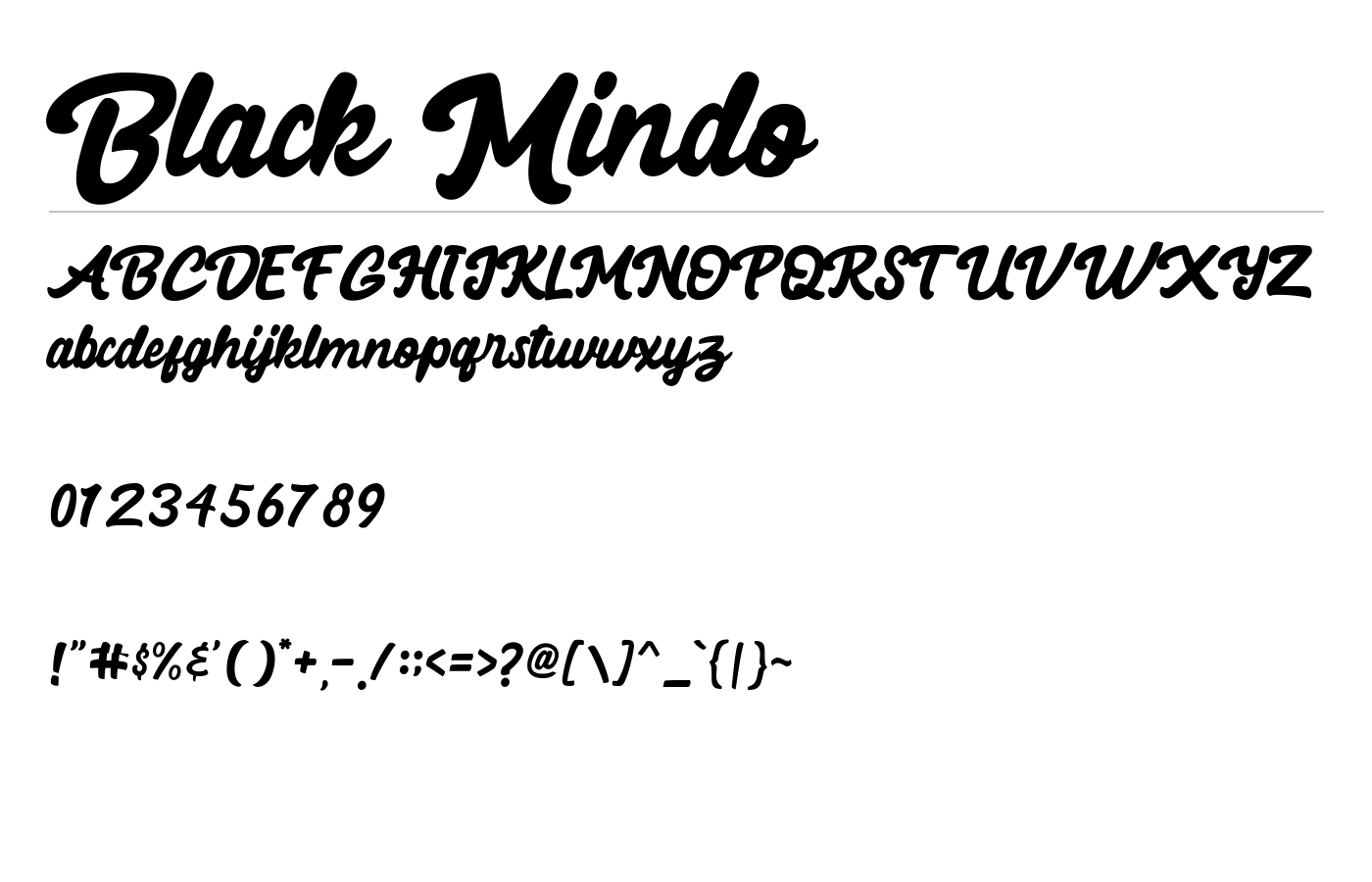
Black Mindo is a bold, script-style font that blends playful charm with a smooth, flowing design. Its rounded, thick strokes and connected letterforms create a friendly yet confident feel, making it ideal for branding, logos, and headlines where a stylish, approachable vibe is desired. This font works especially well for creative projects and designs that seek a warm, informal touch without sacrificing clarity.
Black Mindo Font
About Black Mindo Font
| Designer | Rudhi Sasmito |